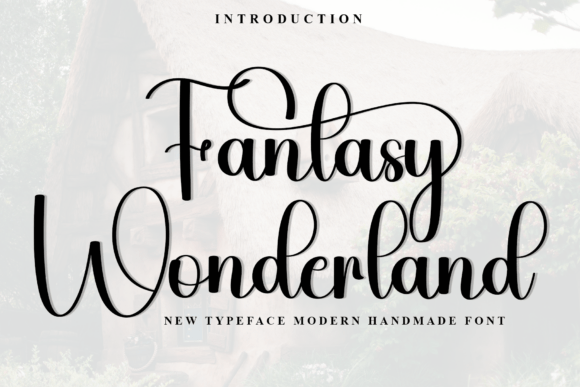
Fantasy Wonderland Font: A Whimsical and Versatile Typeface
In the realm of typography, few fonts capture the essence of imagination and creativity as effectively as the Fantasy Wonderland Font. This beautiful and eye-catching typeface is designed with a soft, unique touch that sets it apart from more traditional fonts. Its distinctive strokes give it a special character, making it not only meaningful but also highly versatile for future use. Whether you’re working on design projects, crafts, or other creative works, the Fantasy Wonderland Font is an excellent choice.
Unique Characteristics of Fantasy Wonderland Font
The Fantasy Wonderland Font boasts a range of unique characteristics that make it a standout in the world of typography. Its soft and whimsical design lends a touch of magic to any project, making it perfect for themes that require a sense of wonder and enchantment. The font’s distinctive strokes are carefully crafted to provide a special charm, ensuring that your designs are not only visually appealing but also memorable.
Versatility Across Creative Fields
One of the key advantages of the Fantasy Wonderland Font is its versatility. This font is not limited to a specific type of project or creative field. Instead, it can be seamlessly integrated into a wide range of applications, from graphic design and digital art to crafting and DIY projects. Its unique style ensures that it can be used in various contexts, making it a valuable asset for creatives who seek to add a touch of fantasy to their work.
Perfect for Design Projects and Crafts
For designers and crafters, the Fantasy Wonderland Font offers endless possibilities. Its natural and whimsical style makes it perfect for a wide range of products, from digital graphics and branding materials to handmade crafts and DIY projects. The font’s various characters ensure that you have ample creative freedom to experiment with different styles and themes, making it an excellent addition to your typography collection.
Enhancing Your Designs
The Fantasy Wonderland Font is more than just a typeface; it’s a tool for enhancing your designs and making them more appealing to a broad audience. Its unique and eye-catching style ensures that your work stands out, capturing the attention of viewers and leaving a lasting impression. Whether you’re working on artistic projects, creative endeavors, or commercial designs, this font can help elevate your work to new heights.
Across Different Artistic and Creative Fields
The appeal of the Fantasy Wonderland Font extends across different artistic and creative fields. Graphic designers, digital artists, crafters, and DIY enthusiasts can all benefit from incorporating this font into their projects. Its versatility and unique style ensure that it can be used in a variety of contexts, from children’s books and educational materials to branding and advertising.
Why Choose Fantasy Wonderland Font?
There are several reasons why the Fantasy Wonderland Font stands out as a top choice for creatives:
- Unique Design: The font’s soft and whimsical design sets it apart from more traditional typefaces.
- Versatility: It can be used in a wide range of projects and creative fields.
- Creative Freedom: With its various characters, the Fantasy Wonderland Font offers ample creative freedom.
The Fantasy Wonderland Font is a beautiful and versatile typeface that can add a touch of magic to any project. Its unique design, versatility, and compatibility make it an excellent choice for creatives across different fields. Whether you’re a designer, artist, crafter, or DIY enthusiast, this font is sure to enhance your work and make it more appealing to a broad audience. With the Fantasy Wonderland Font, you can bring your imagination to life and create works that are truly enchanting.